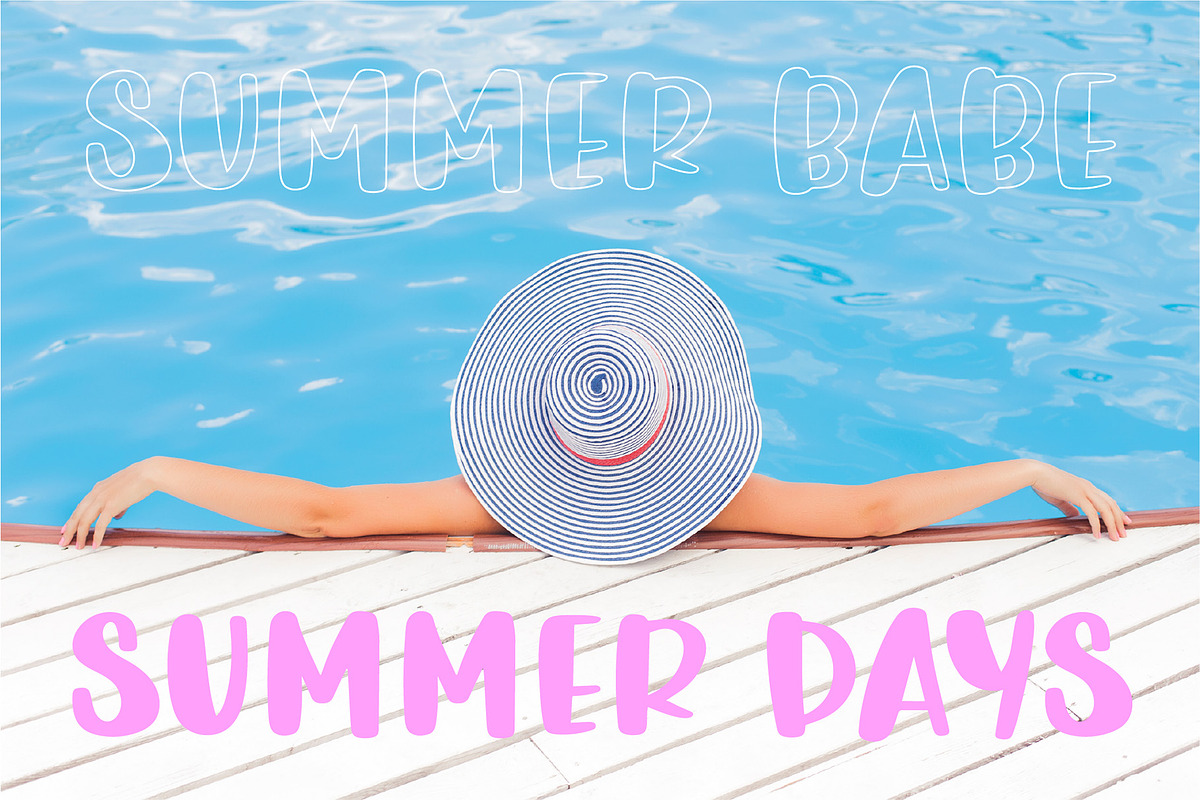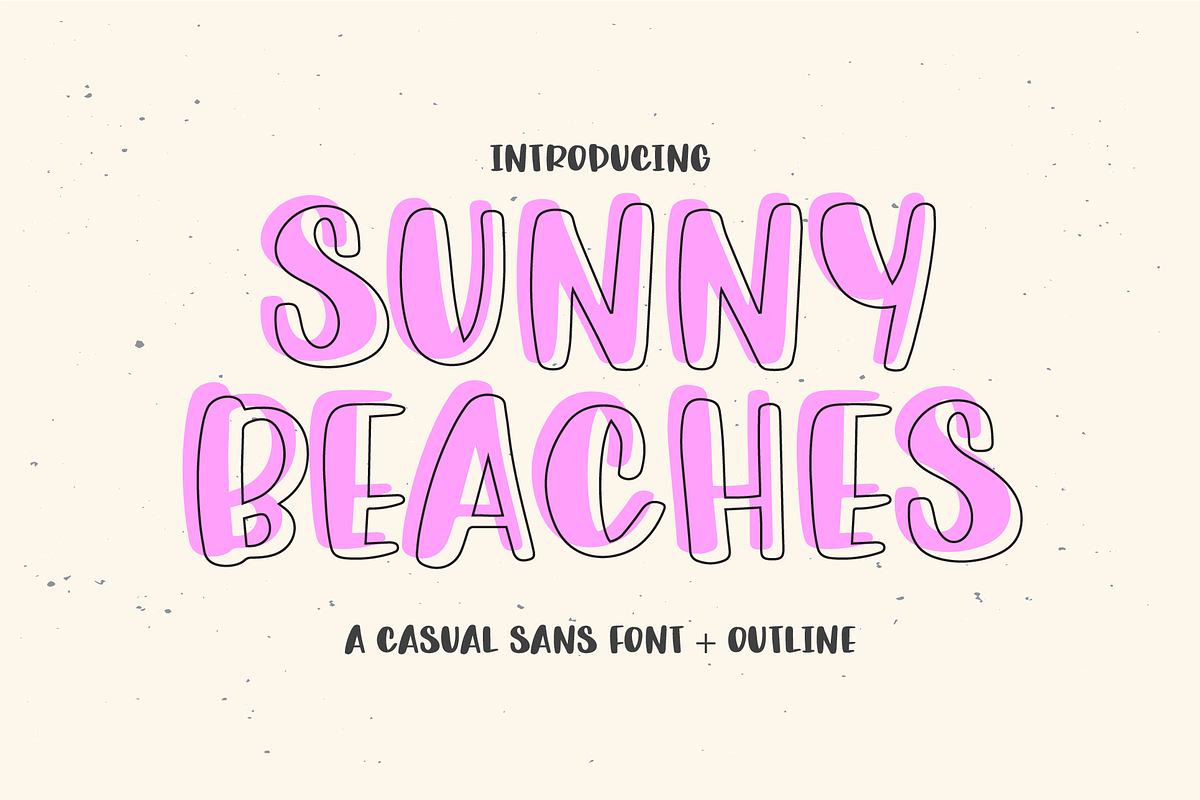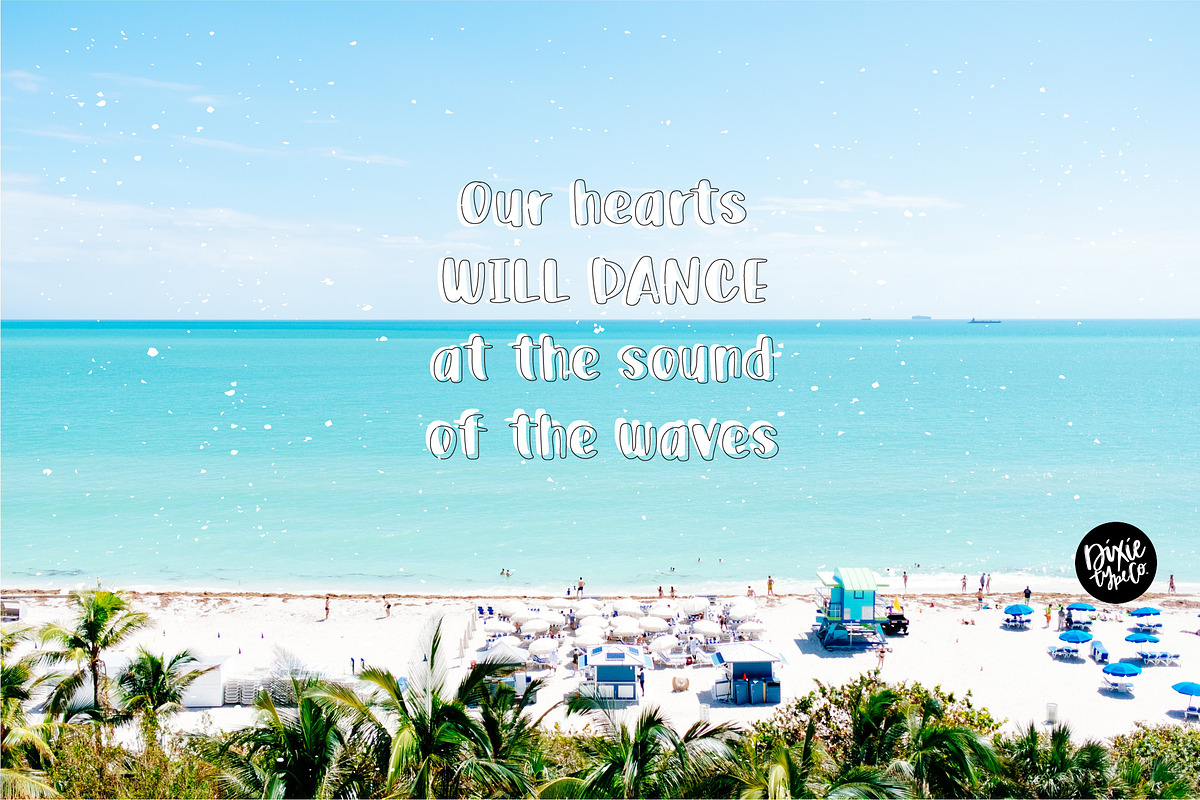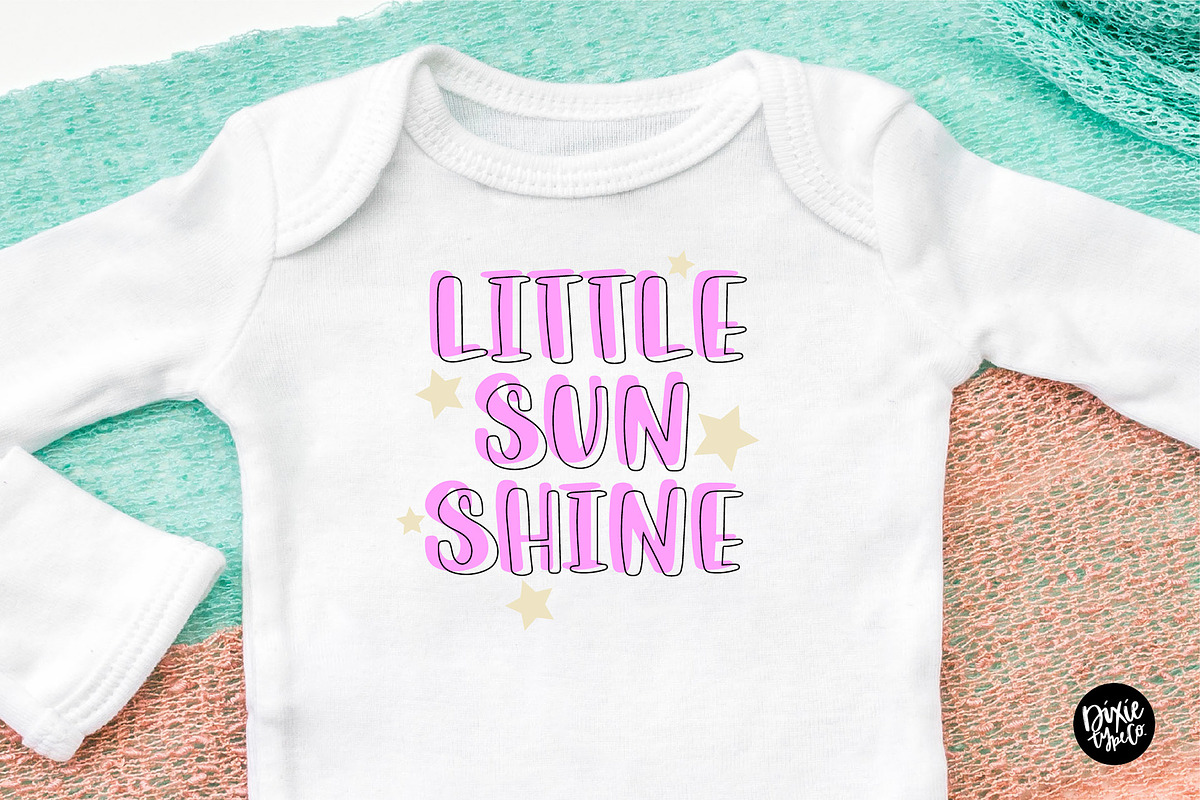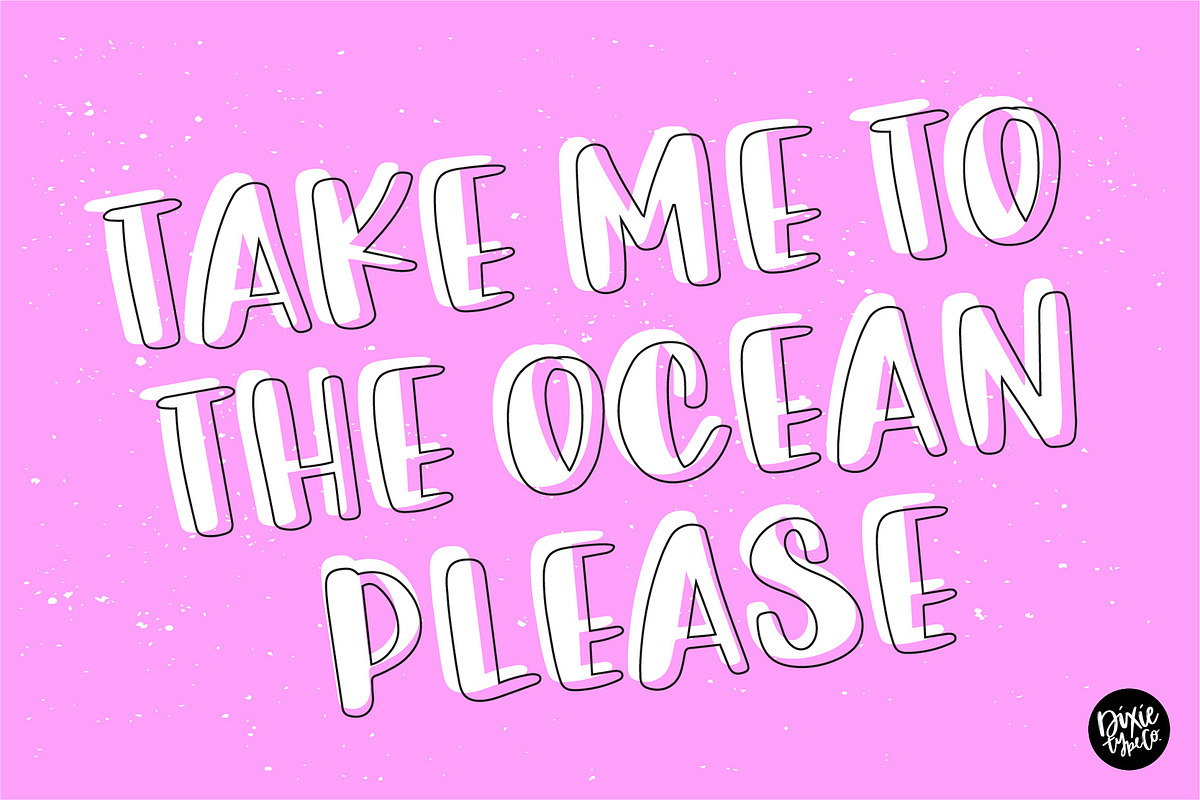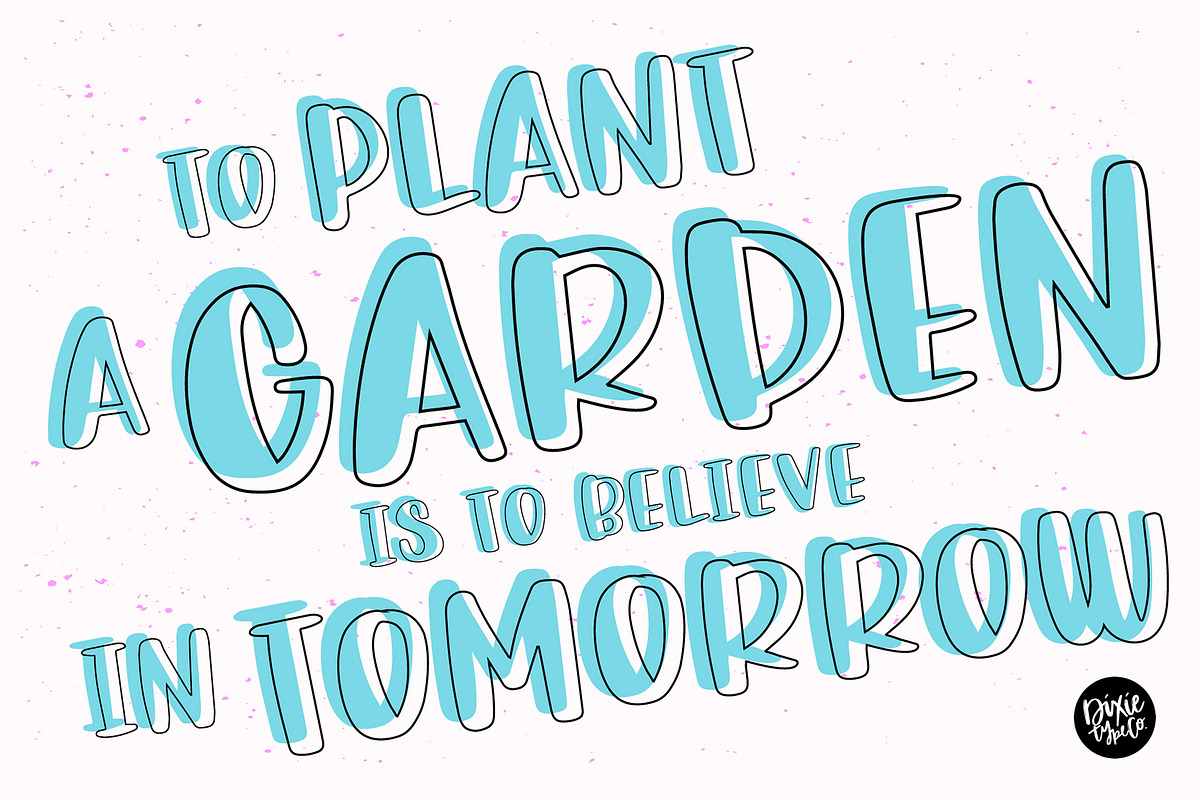
SUNNY BEACHES Casual Sans Outline
"Sunny Beaches" hand lettered installable font. { A typographic font hand lettered with love by Dixie Type Co. }
Sunny Beaches is bold brushed lettered font. This works great as both display or filler text. It comes with a matching "outline" font! Use it for home decor, party invitations, logos, etc.! This is the perfect sans font to have on hand.
- It comes with a matching "outline" font!